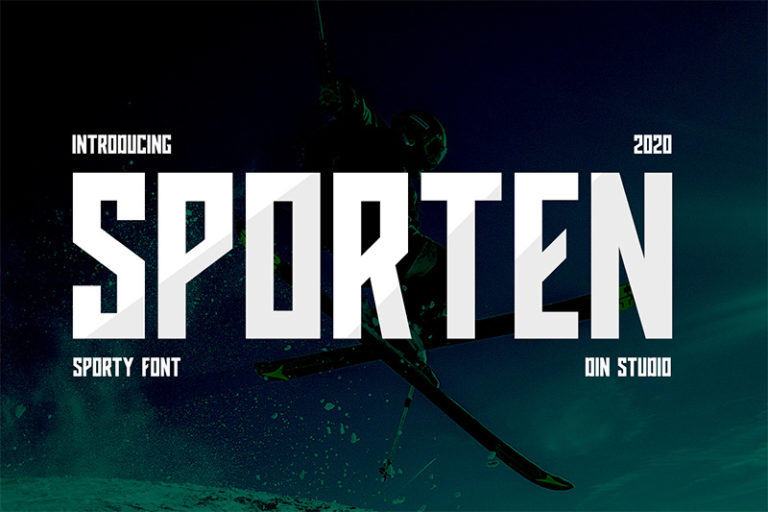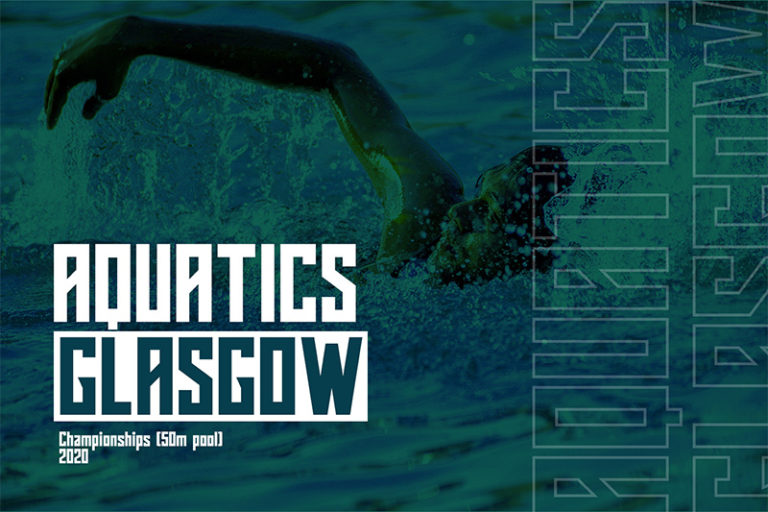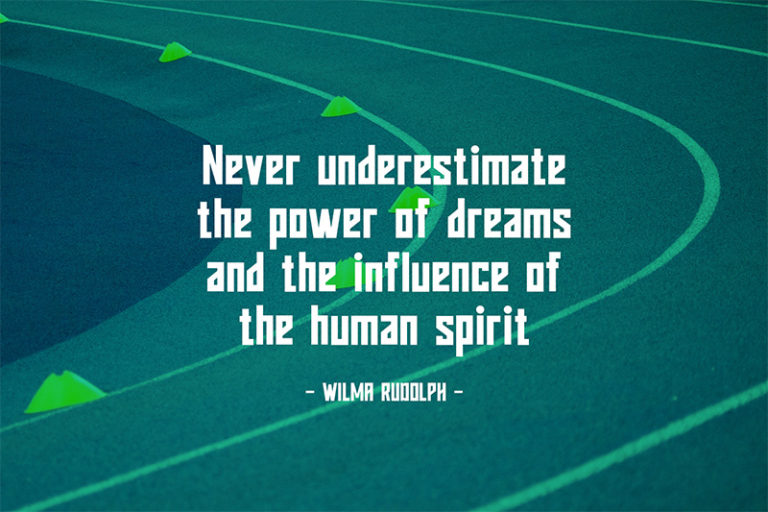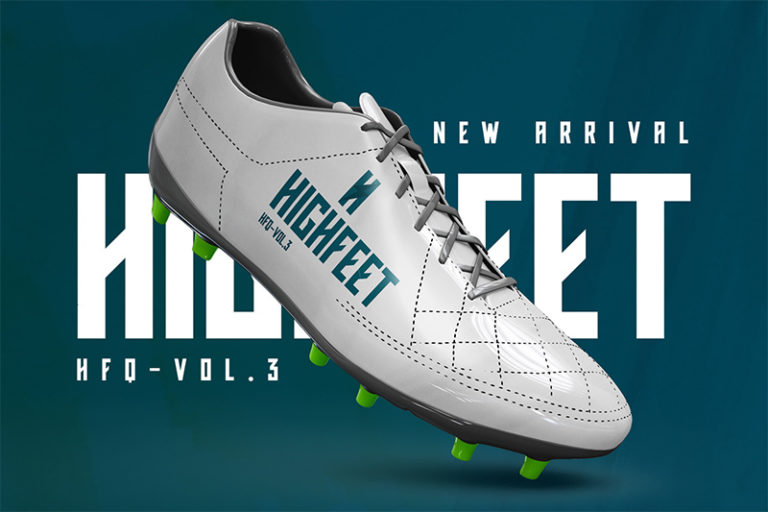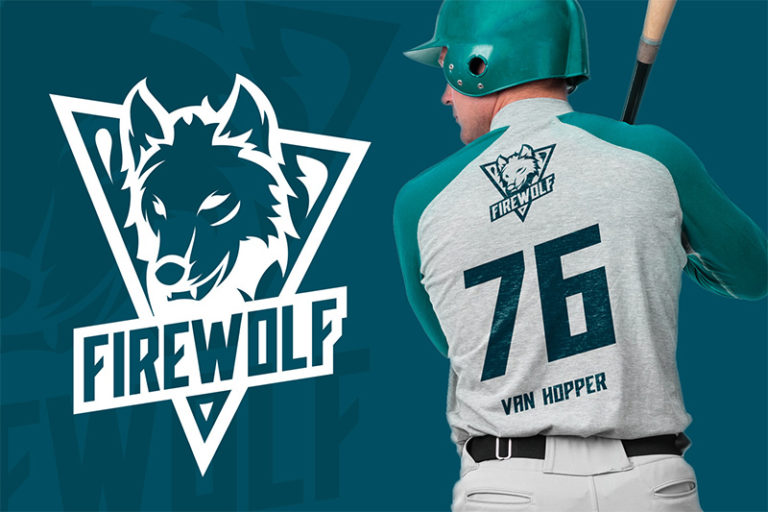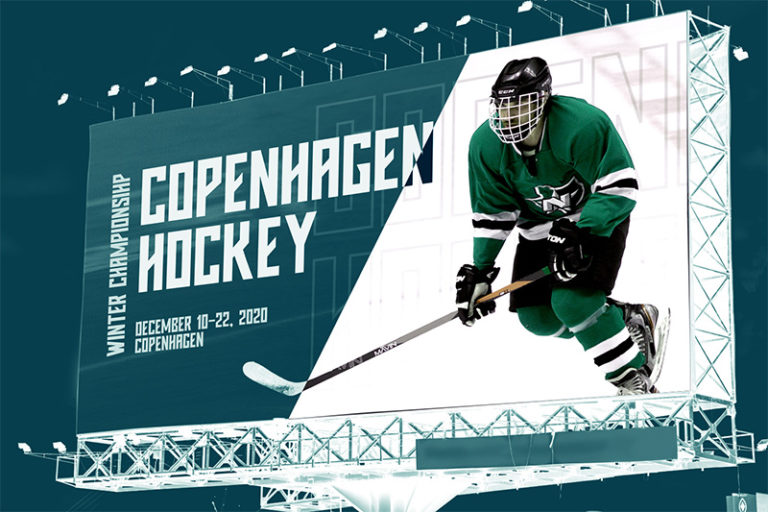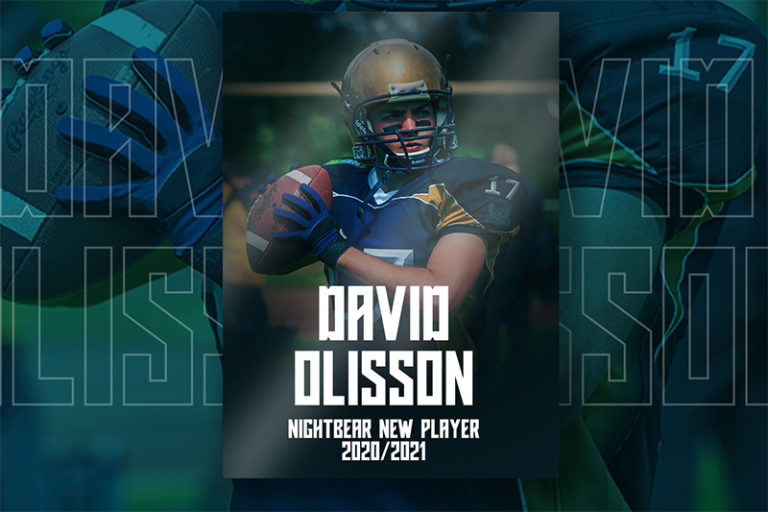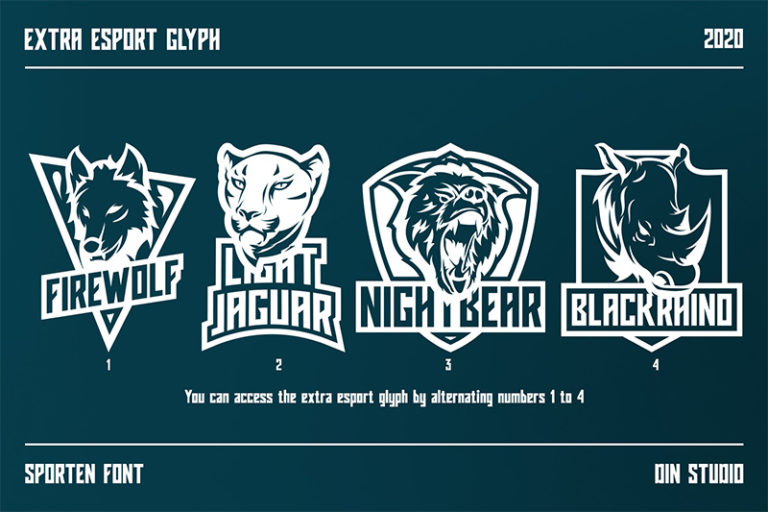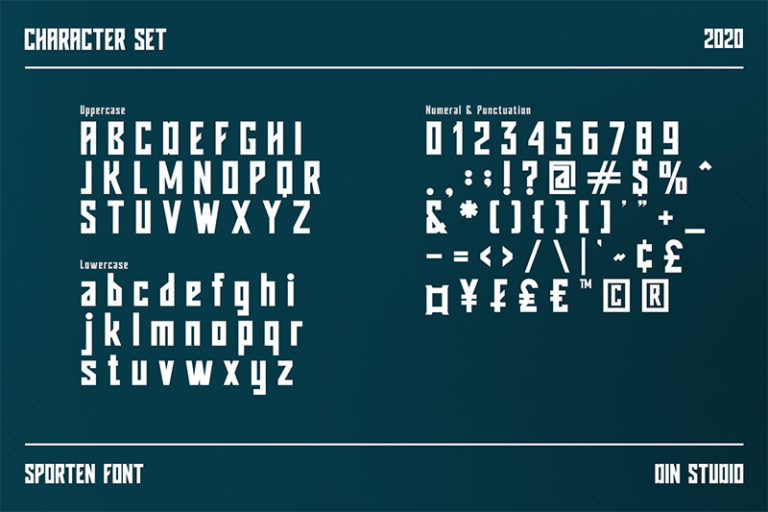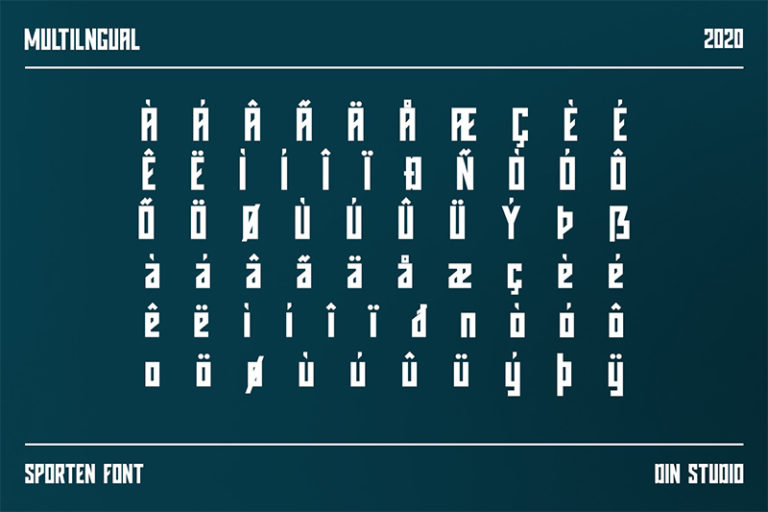
Sporten – Classic Sport Font
Sporten
Hello, Everyone! Introducing Sporten, a classic sport font made for any professional projects related to sports. Besides, this font can be used for printing, brandings and quotes. See the previews above to get some inspiration on how you can use them. Happy Designing!
- Bonus Esport Logo